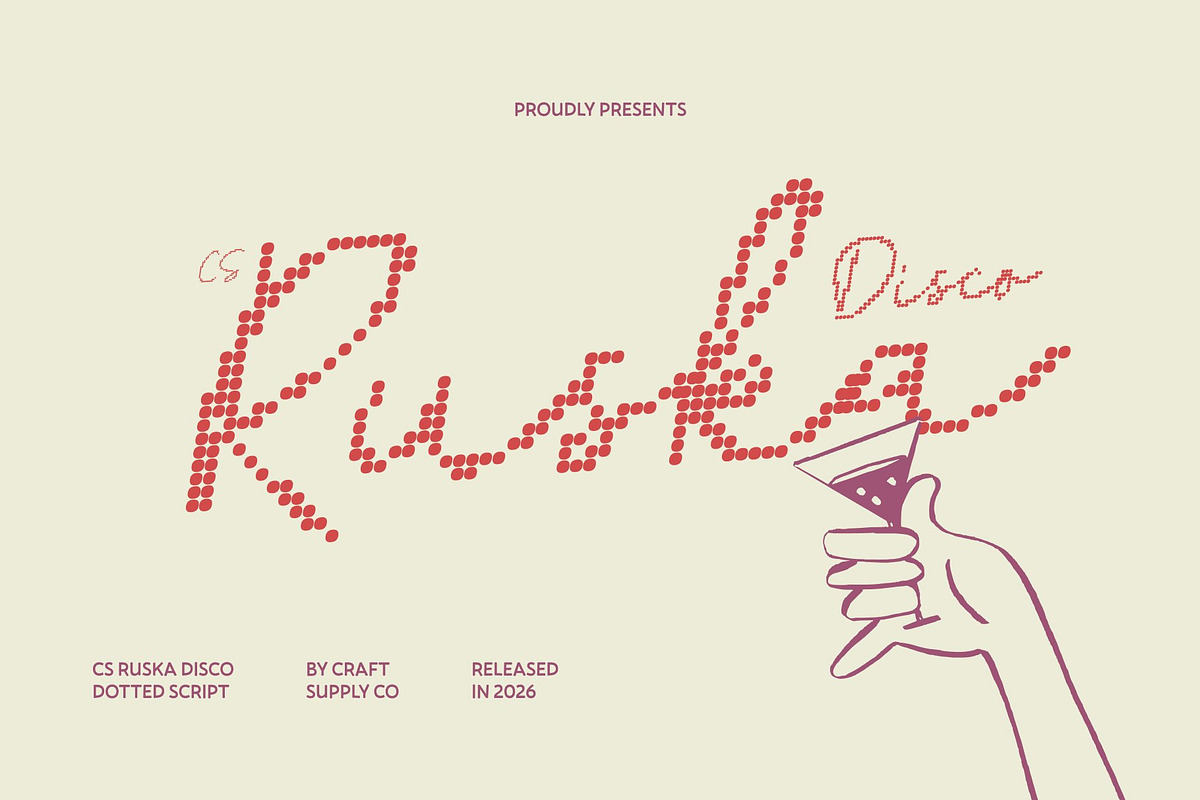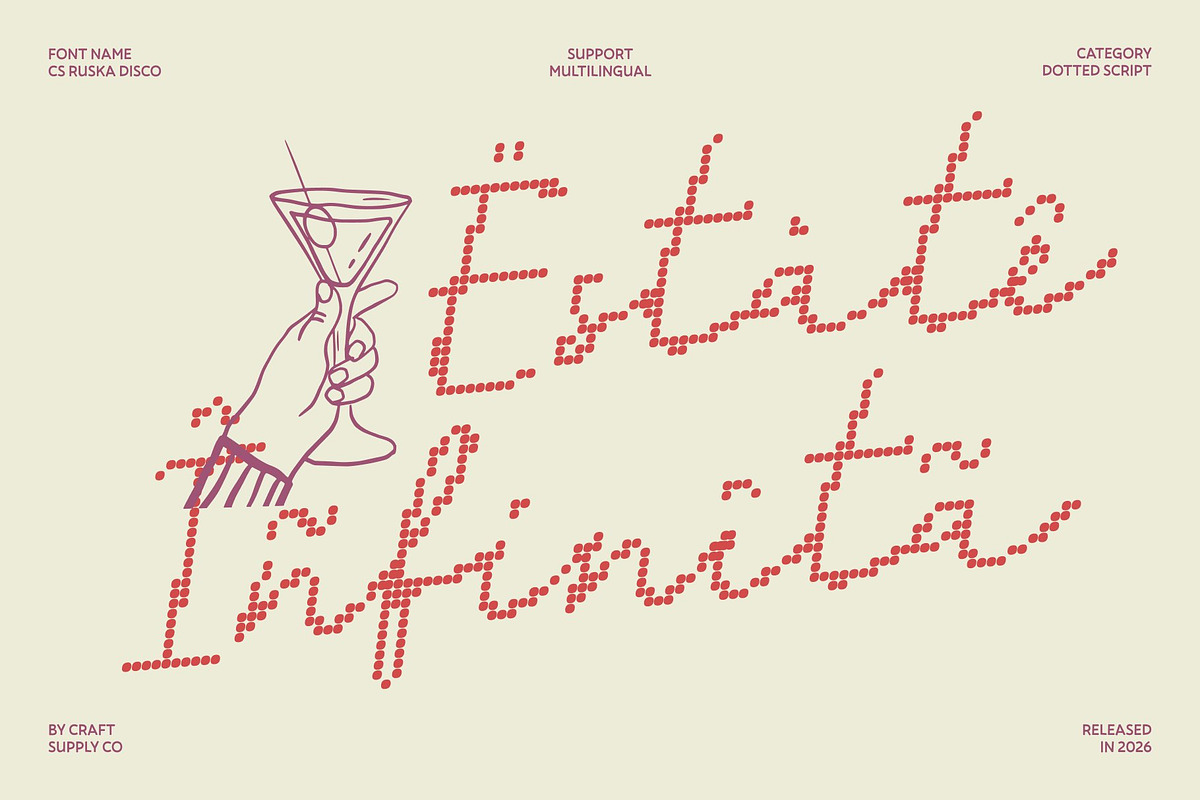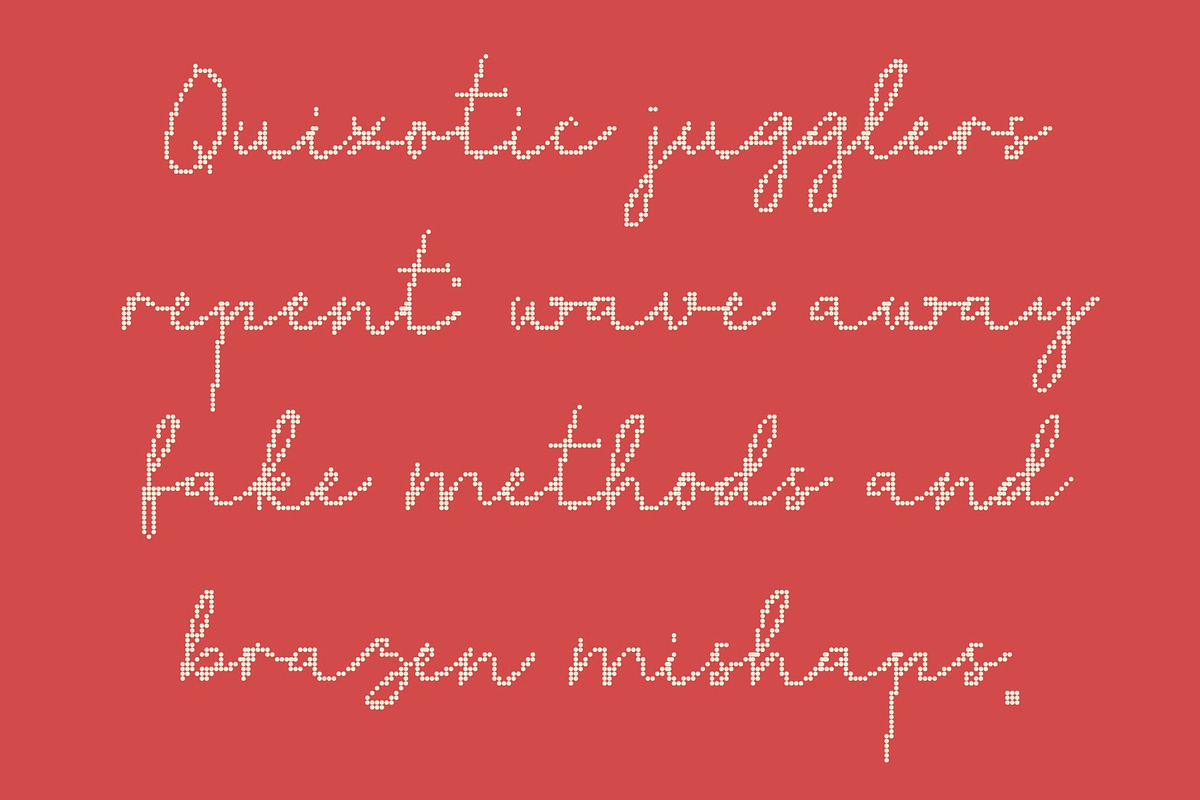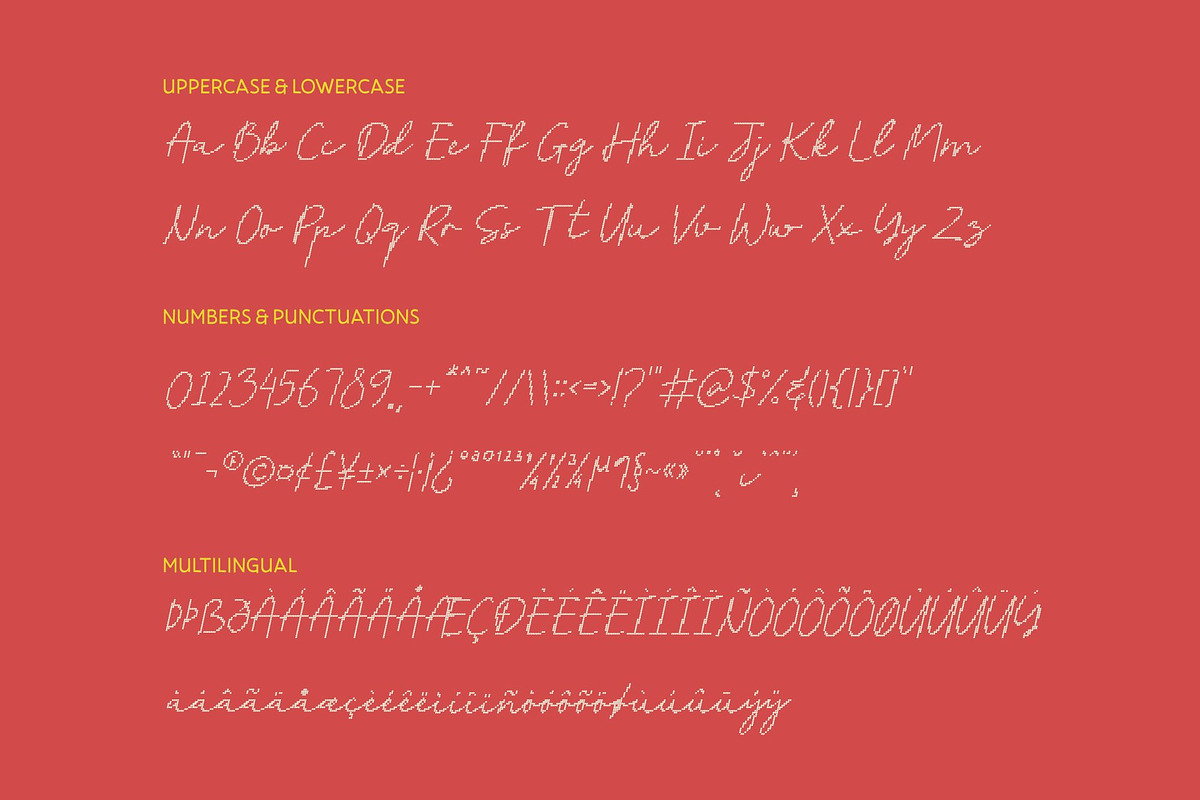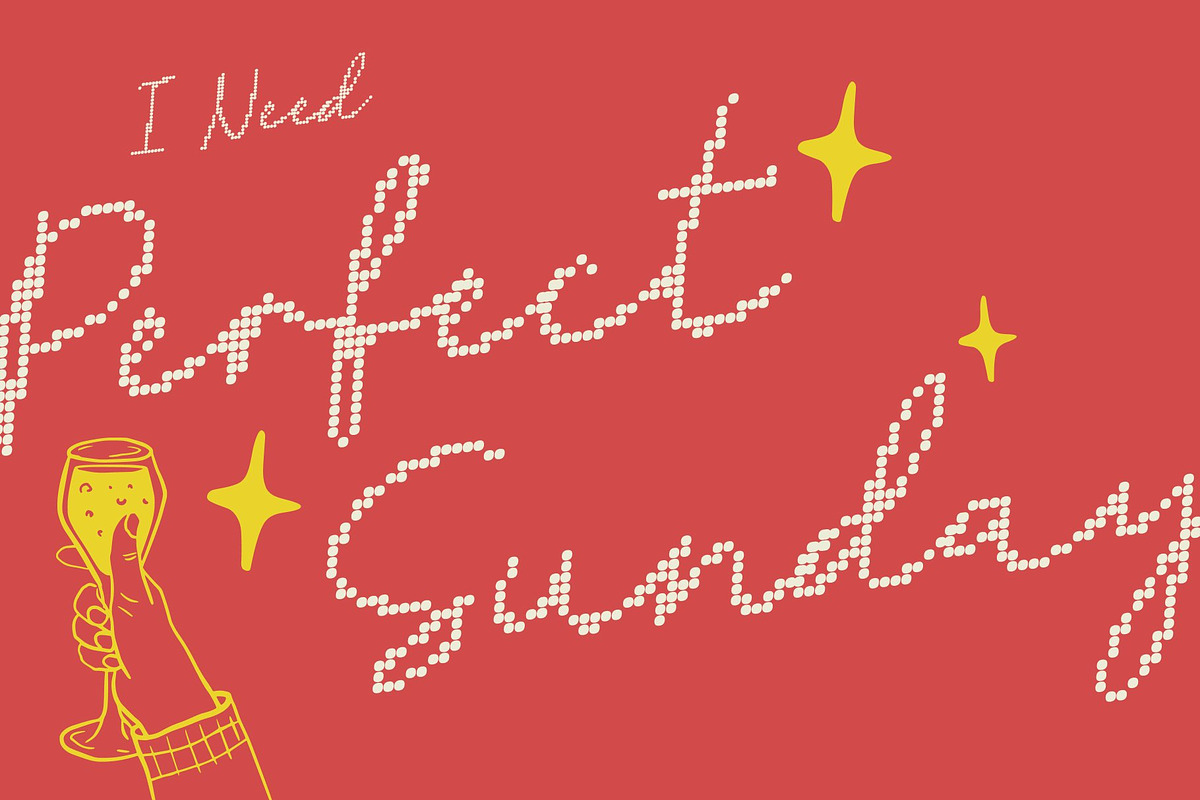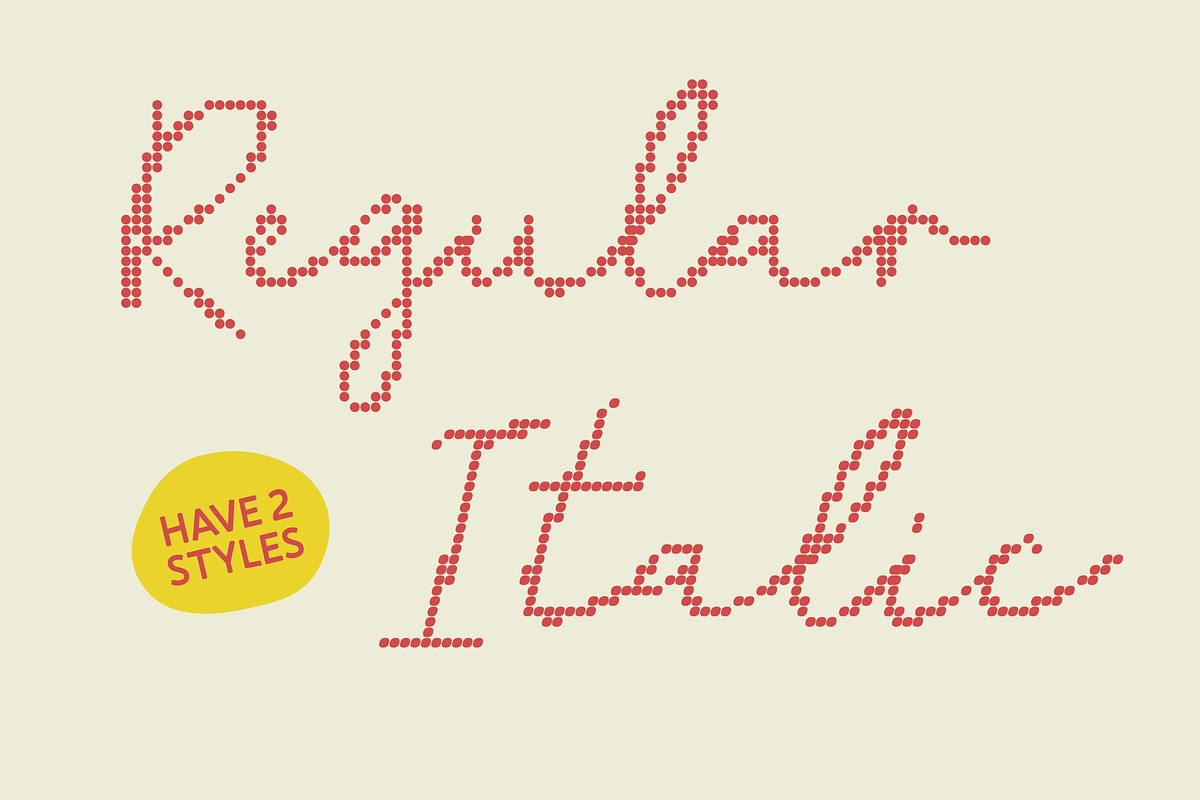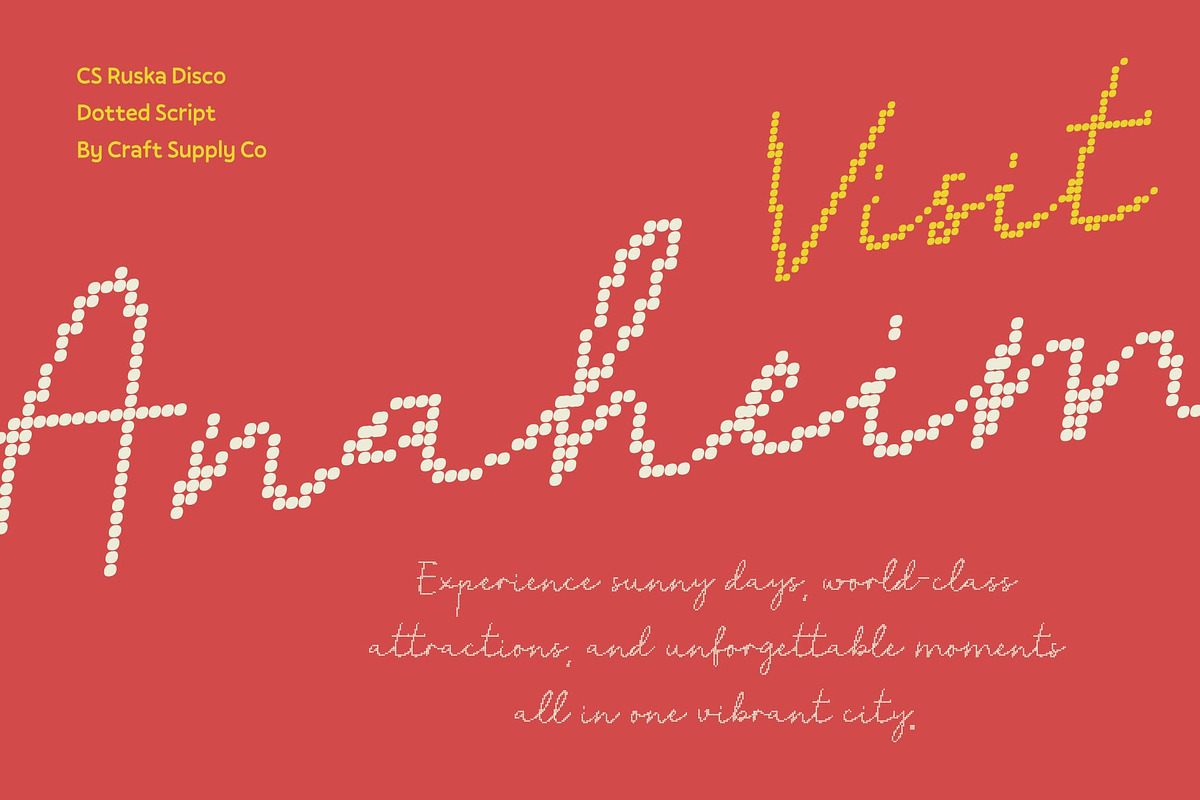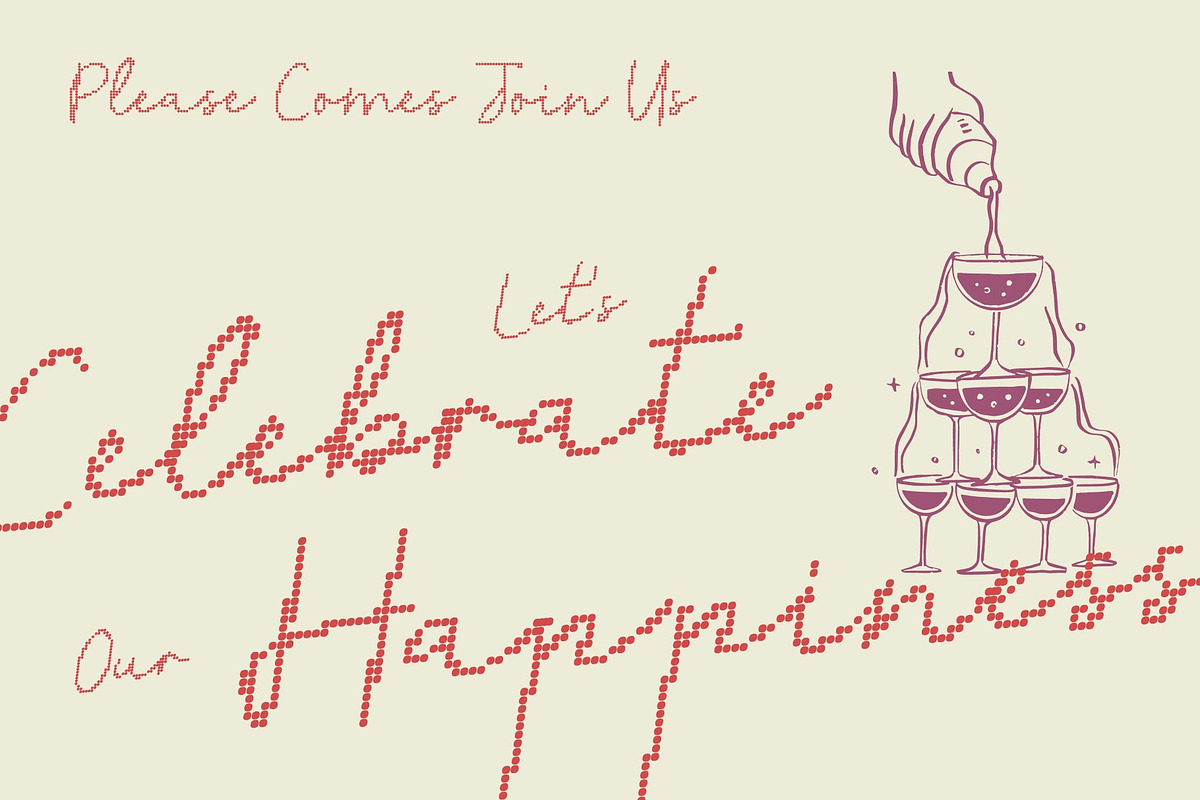
CS Ruska Disco
CS Ruska Disco – Elegant Dot Script with Mediterranean Charm
Romantic Script with Disco Sparkle This font transforms the graceful script style into a dazzling dotted display font inspired by the vibrant lights and joyful atmosphere of disco culture. Each flowing letter is carefully built from small circular dots, creating a sparkling texture that enhances the font’s elegance while adding a festive and lively personality. The dotted construction preserves the beauty of the script while introducing a playful glow reminiscent of illuminated dance floors.
Flowing Curves with Rhythmic Dot Patterns The smooth, fluid strokes of the original script remain intact, maintaining the natural rhythm and elegance of handwritten forms. The dotted structure adds a dynamic visual rhythm, echoing the shimmer of disco lights and decorative patterns. This combination results in a script that feels both refined and energetic.
Mediterranean Elegance with Playful Disco Energy Inspired by the romance and artistry of Mediterranean handwriting, the font’s graceful curves now sparkle with cheerful character. The rounded dots soften each stroke, enhancing the warmth and charm of the design while introducing a celebratory and stylish twist. The result is a typeface that blends classic elegance with lively disco flair.
Perfect for Elegant and Festive Designs This font works beautifully for wedding invitations, luxury branding, packaging, event posters, social media graphics, and editorial layouts. Its dotted script style delivers both sophistication and joyful visual impact, making every composition feel special and memorable.
CS Ruska Disco Regular
CS Ruska Disco Italic